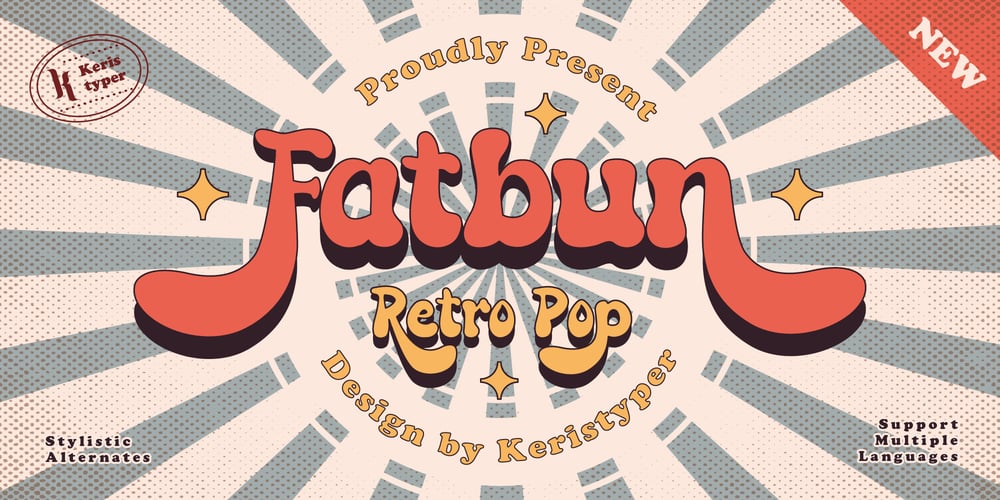
Fatbun
Fatbun font
Fatbun Font Family was designed by Tezar Tantular and published by Keristyper Studio. Fatbun contains 1 styles and family package options. Introducing Fatbun – playful hand-lettered bold typeface inspired by classic groovy retro display font. This font is good for logo design, Social media, Movie Titles, Books Titles, short text even long text letters, and good for your secondary text font with sans or serif.**Featured:*** Standard Uppercase & Lowercase* Numeral & Punctuation* Multilingual : ä ö ü Ä Ö Ü ß ¿ ¡* Alternate & Ligature* PUA encodedWe recommend programs that support the OpenType feature and the Glyphs panel such as Adobe applications or Corel Draw. so you can use all the variations of the glyphs.Hope you enjoy our fonts!